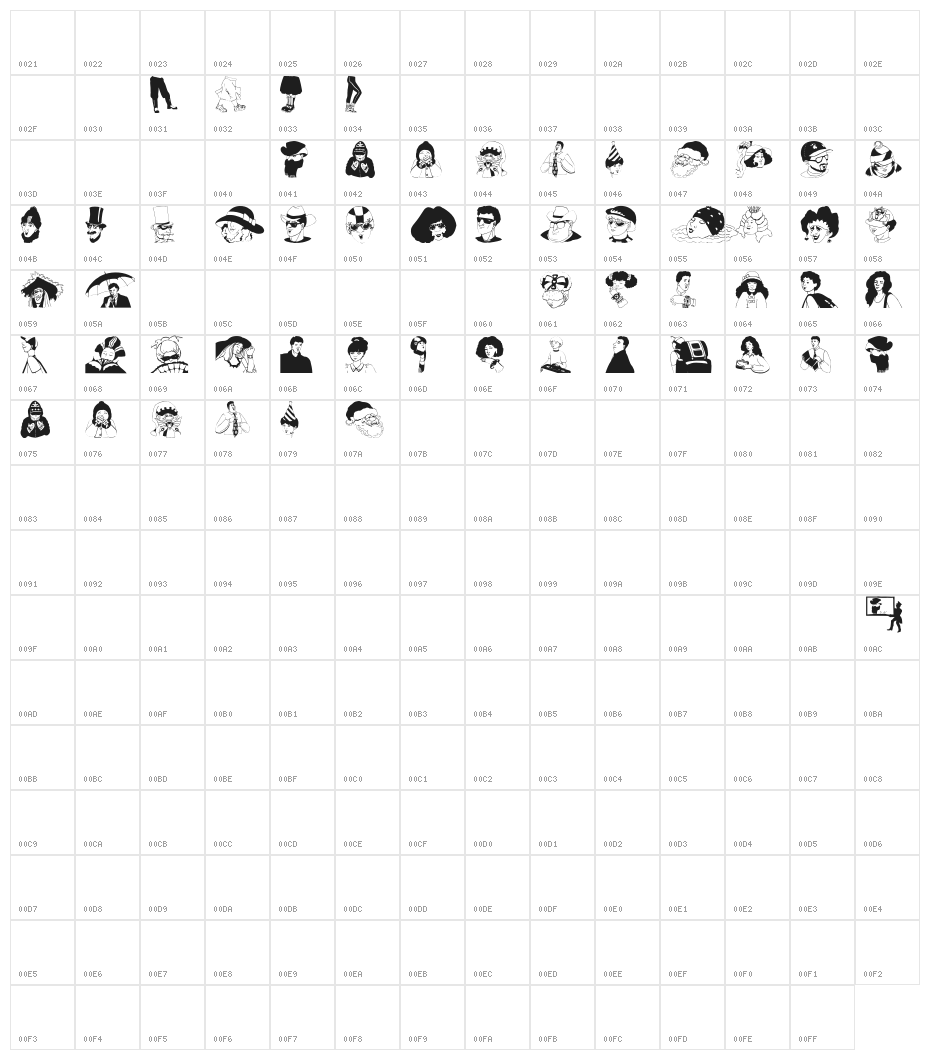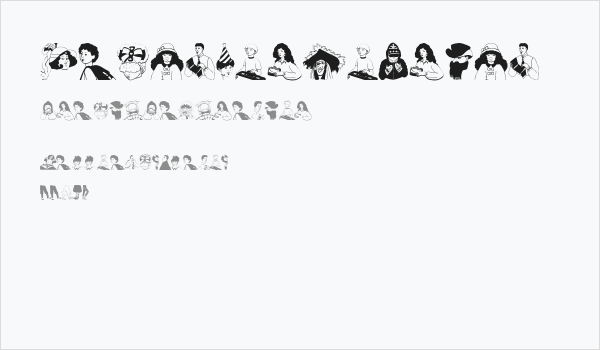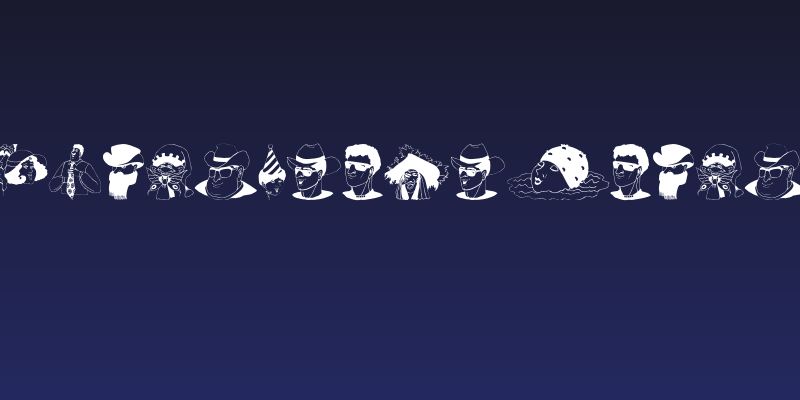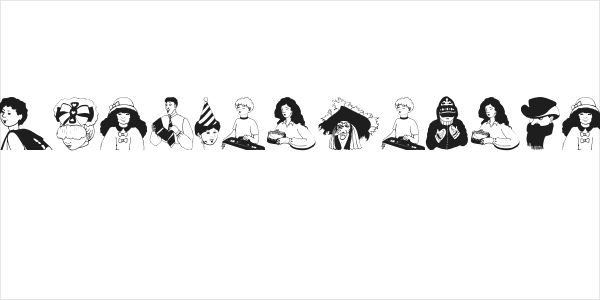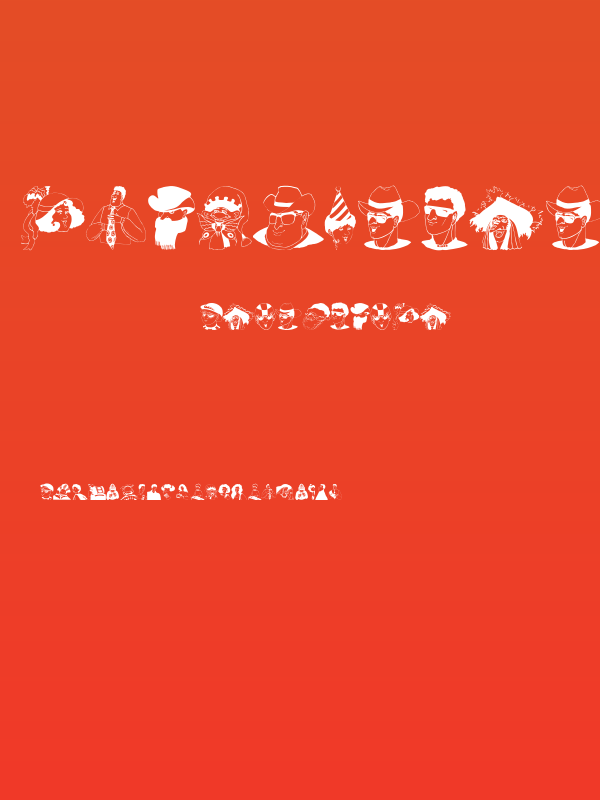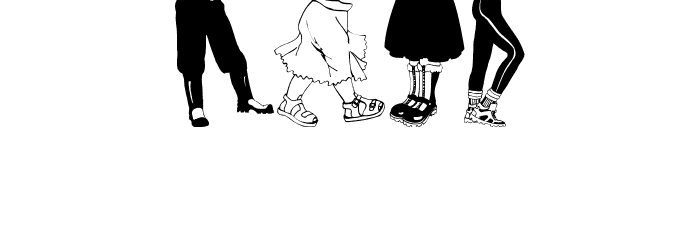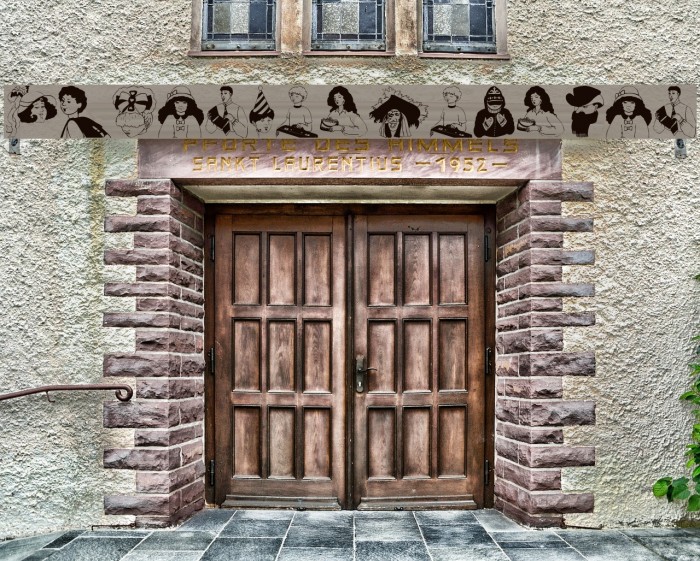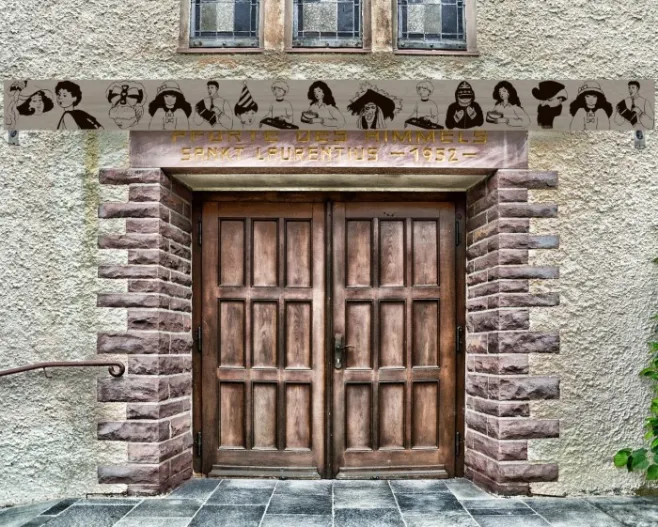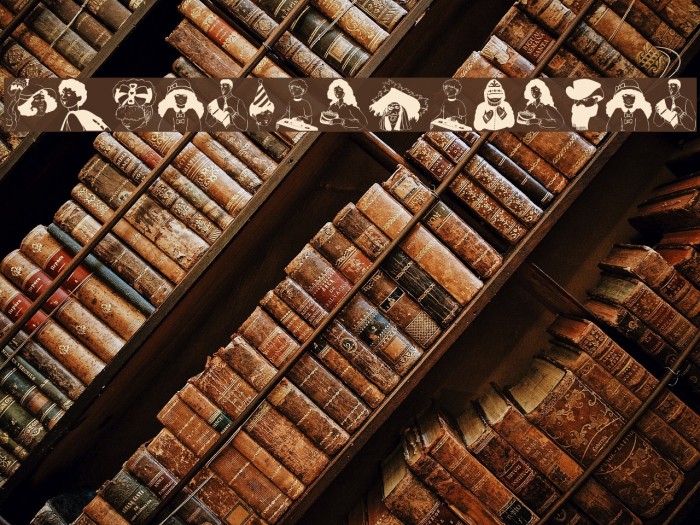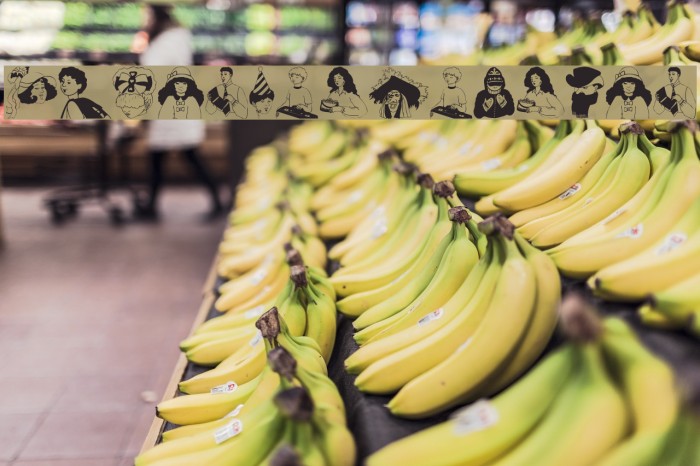
HeadsForYourAds Font
HeadsForYourAds Description
A decorative display font composed entirely of detailed black-and-white illustrations of people's heads, faces, and a few full-body or partial-body figures, each character representing a unique person or costume. The style is cartoonish and playful, with a variety of expressions, hats, and accessories, making each glyph highly distinctive and illustrative.
| Overall Style | Playful, Cartoonish, Decorative |
| Use Case | Logos, Posters, Headlines, Themed Graphics |
| Proposed Projects | Children’s books, party invitations, comic strips, creative posters, educational materials, themed event branding. |